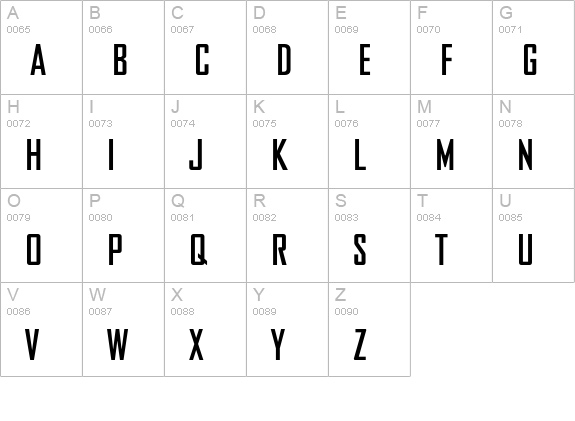
BureauAgencyBold font is a modern and sleek typeface that exudes professionalism and elegance. With its bold and confident presence, this font is perfect for creating eye-catching headlines, titles, and branding materials. The clean lines and sharp angles of BureauAgencyBold make it a versatile choice for a wide range of design projects. The best part? BureauAgencyBold font is available for free download at FontsMarket.com. Whether you're working on a logo design, website layout, or print materials, this font will add a touch of sophistication to your project. Don't miss out on the opportunity to enhance your designs with the bold and stylish BureauAgencyBold font. Download it today and elevate your typography game!